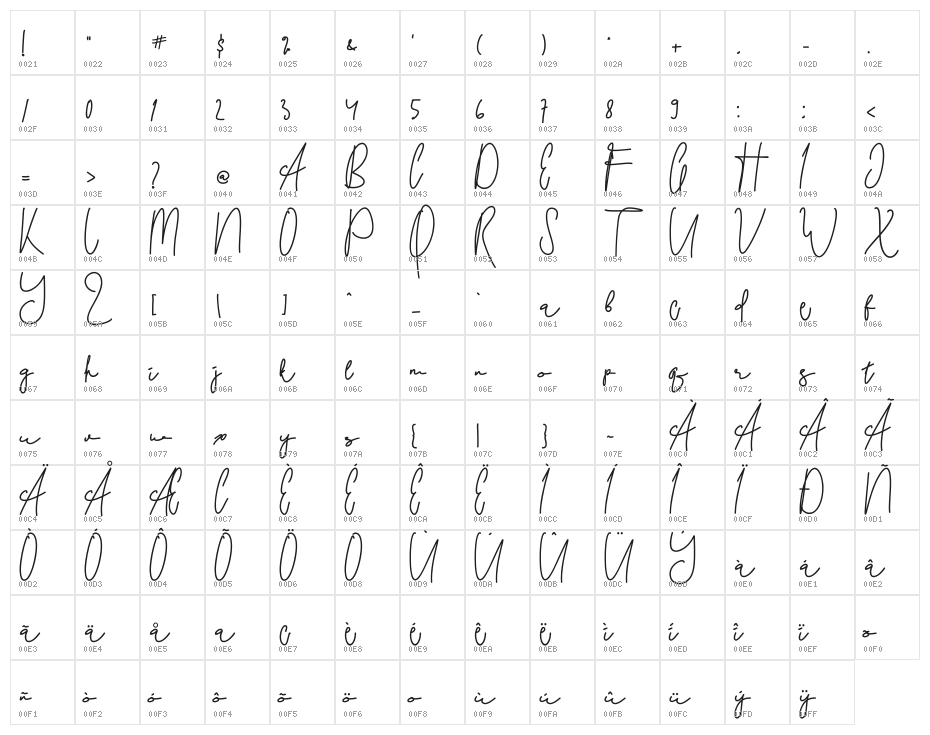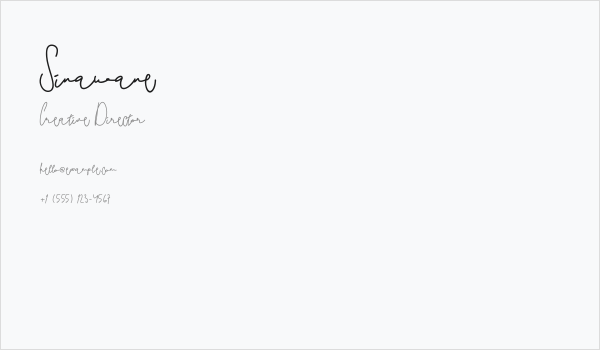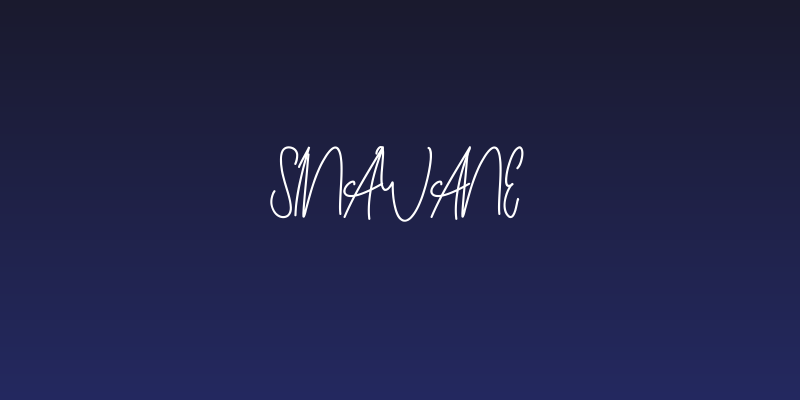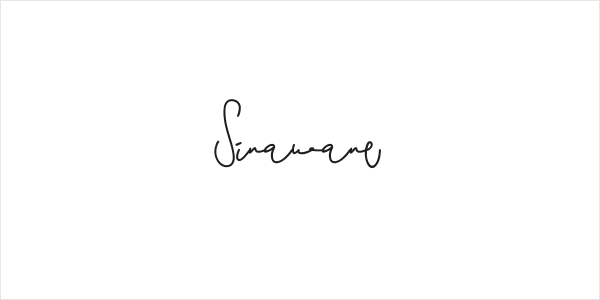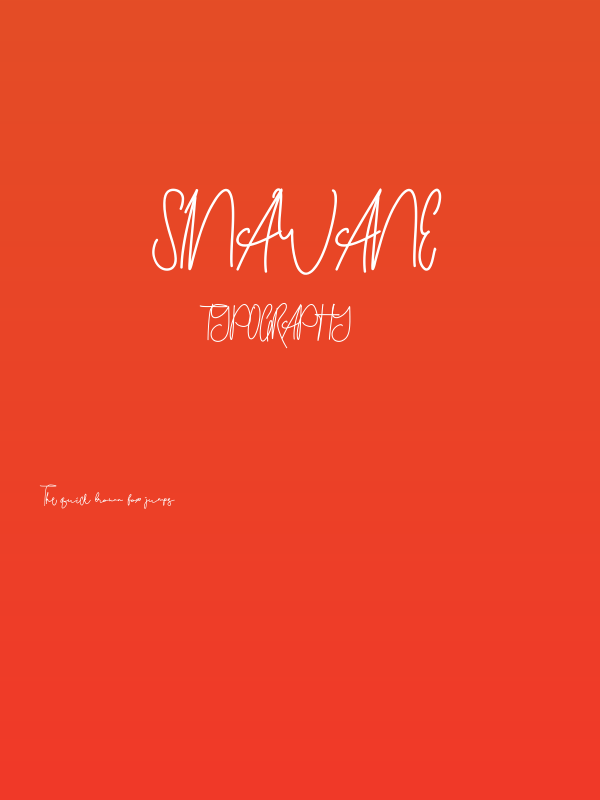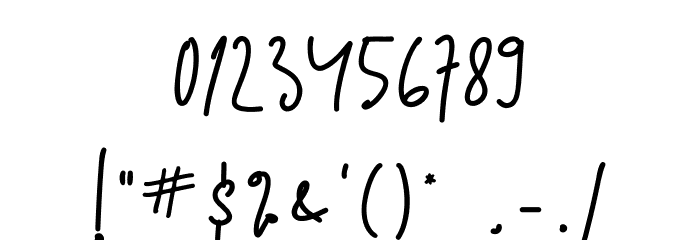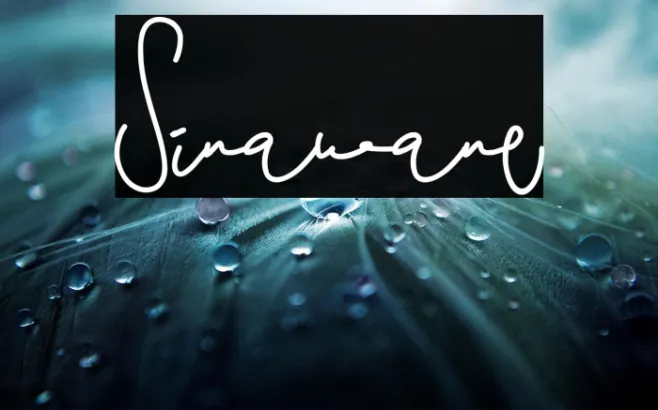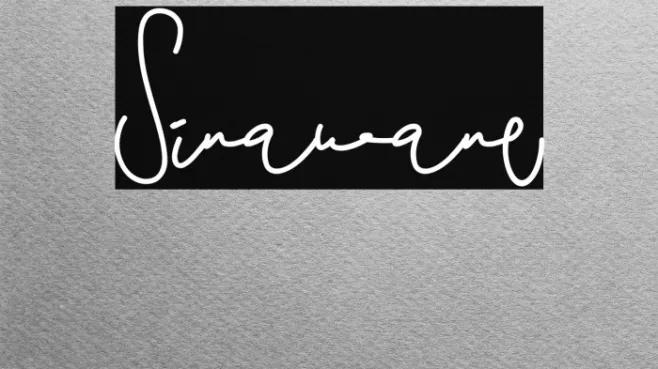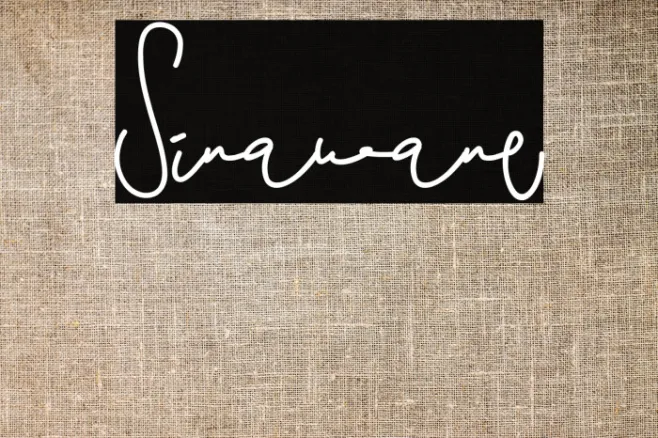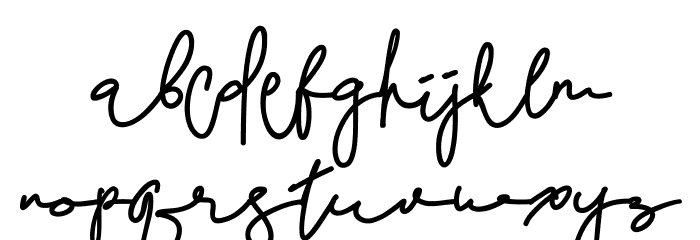
Sinawane Font
Sinawane Description
This font features a playful and casual handwritten style, characterized by its flowing, cursive letters. The uppercase letters are tall and slender, with a slight slant, giving them an elegant yet informal appearance. The lowercase letters maintain a consistent flow, with rounded edges and a smooth, connected script. Numbers and special characters follow the same handwritten aesthetic, adding a personal touch to any text. The overall look is dynamic and lively, making it suitable for creative and informal projects.